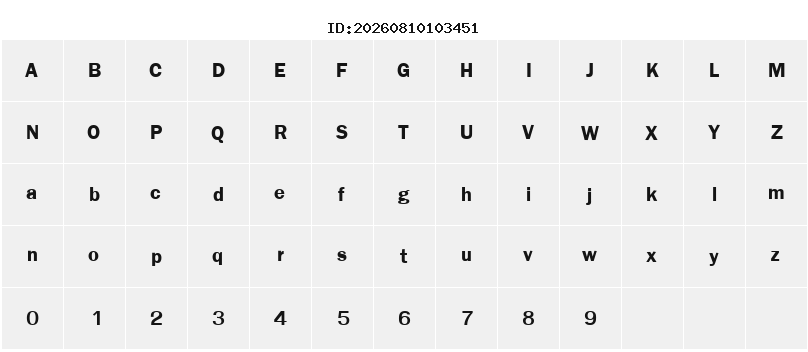
• Font Name: P5 FreesiaUPC
• Full Font Name: P5 FreesiaUPC Bold
About P5 FreesiaUPC.ttf
P5 FreesiaUPC.ttf is a modern, elegant sans-serif font designed for ultimate readability and visual harmony. Perfect for branding, headlines, web design, and print materials.